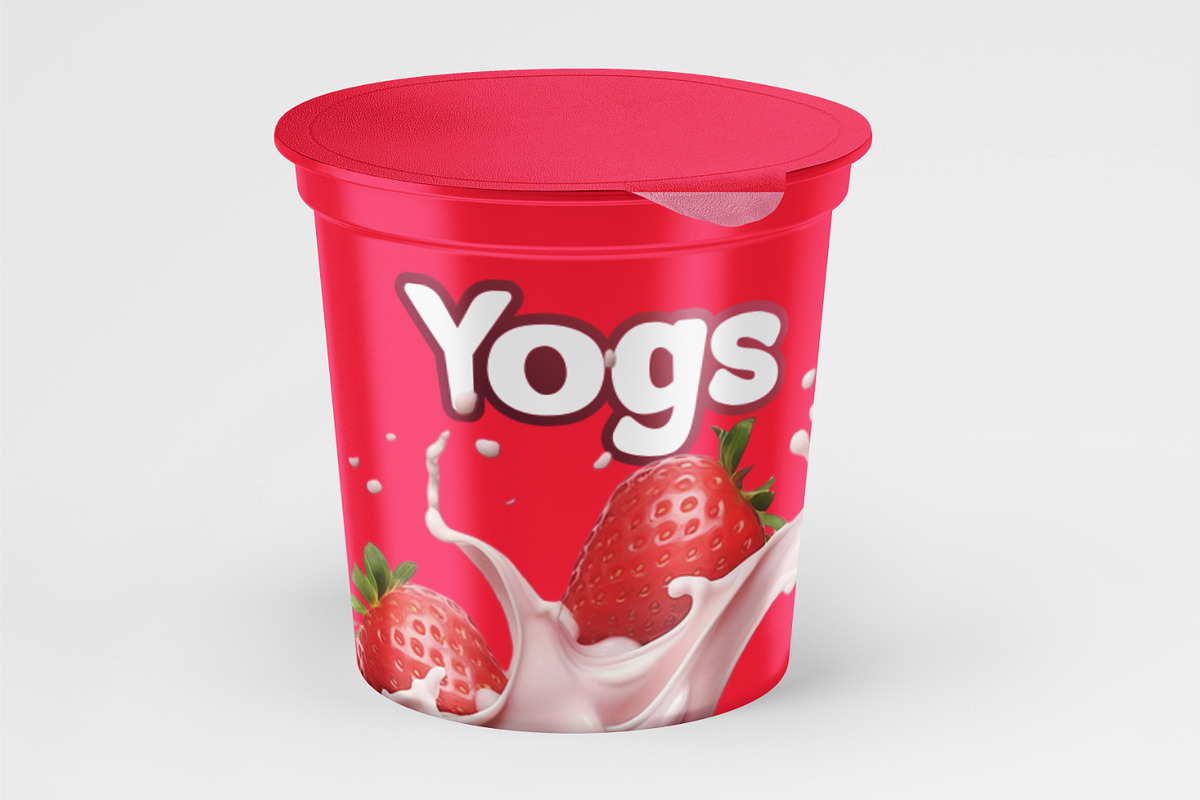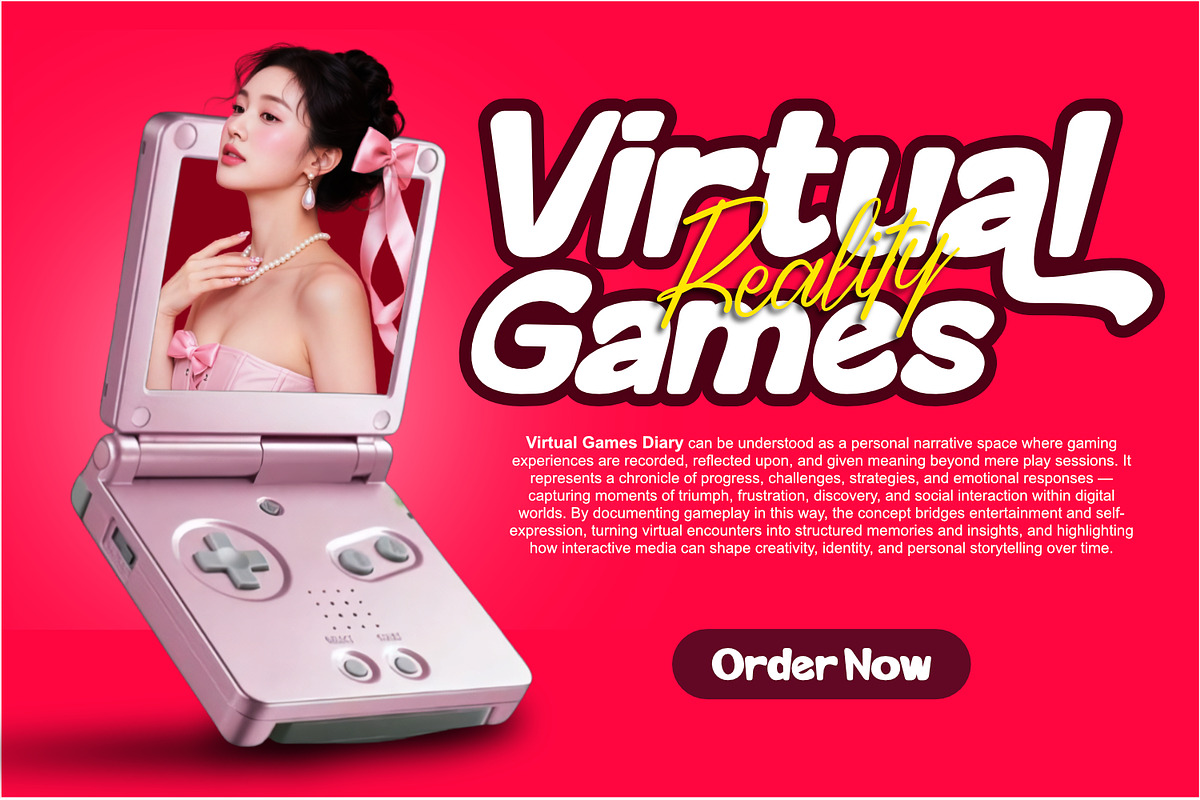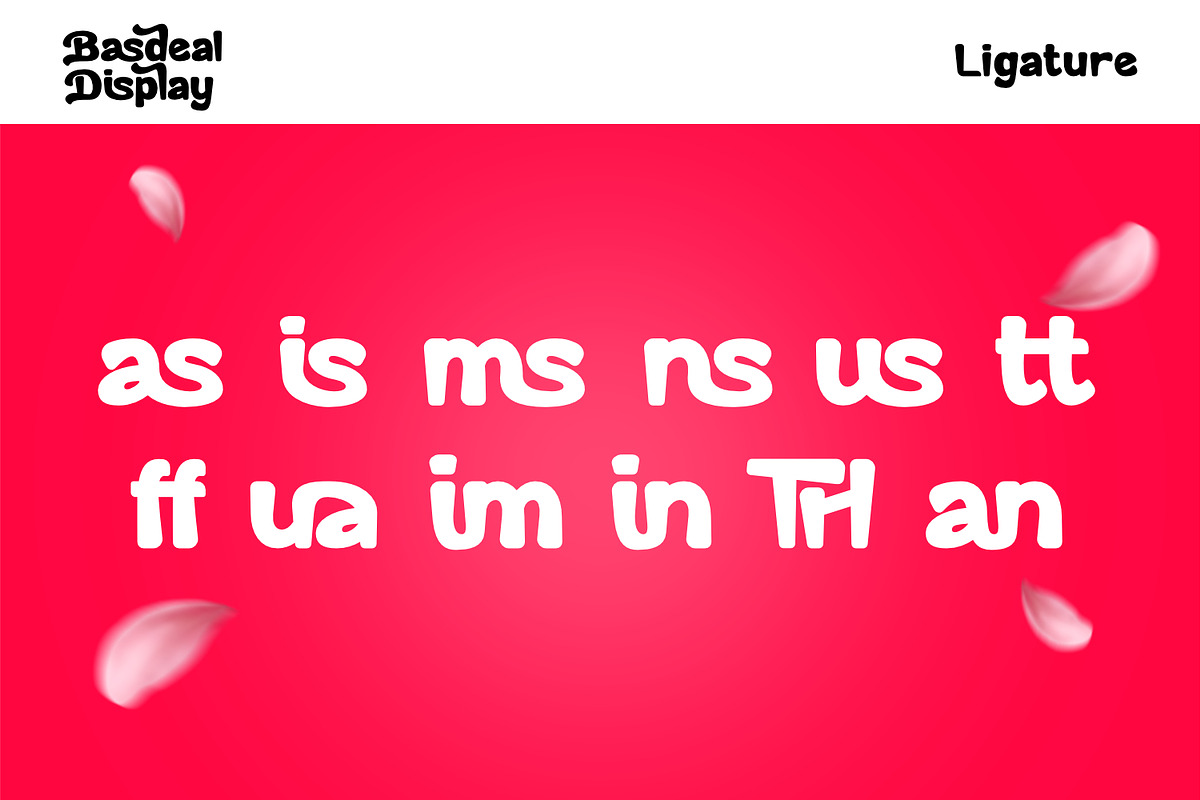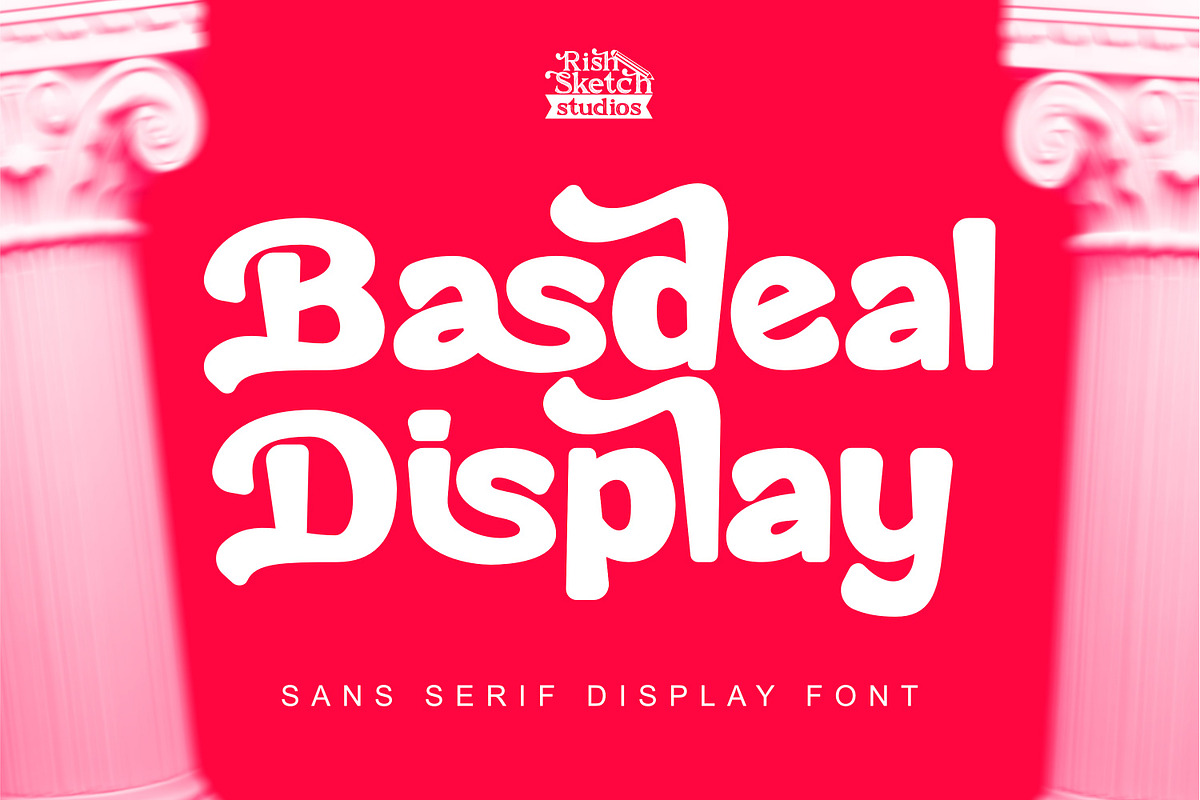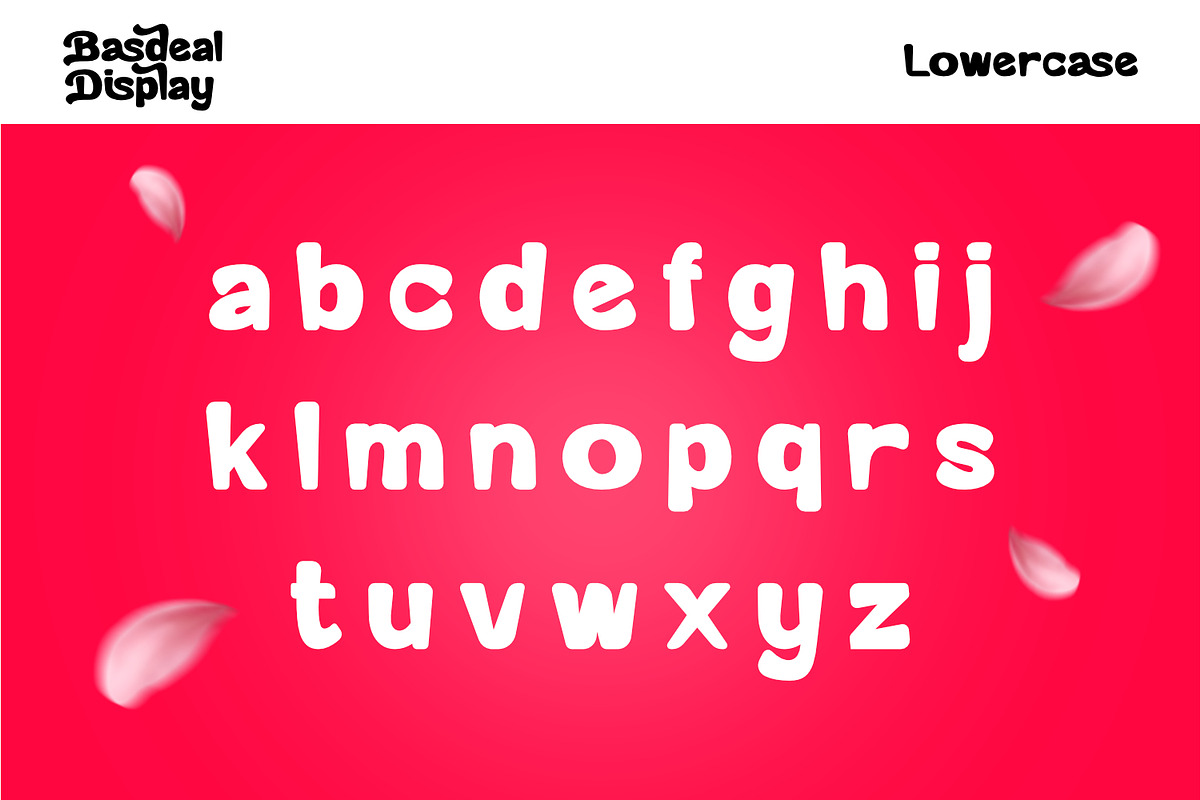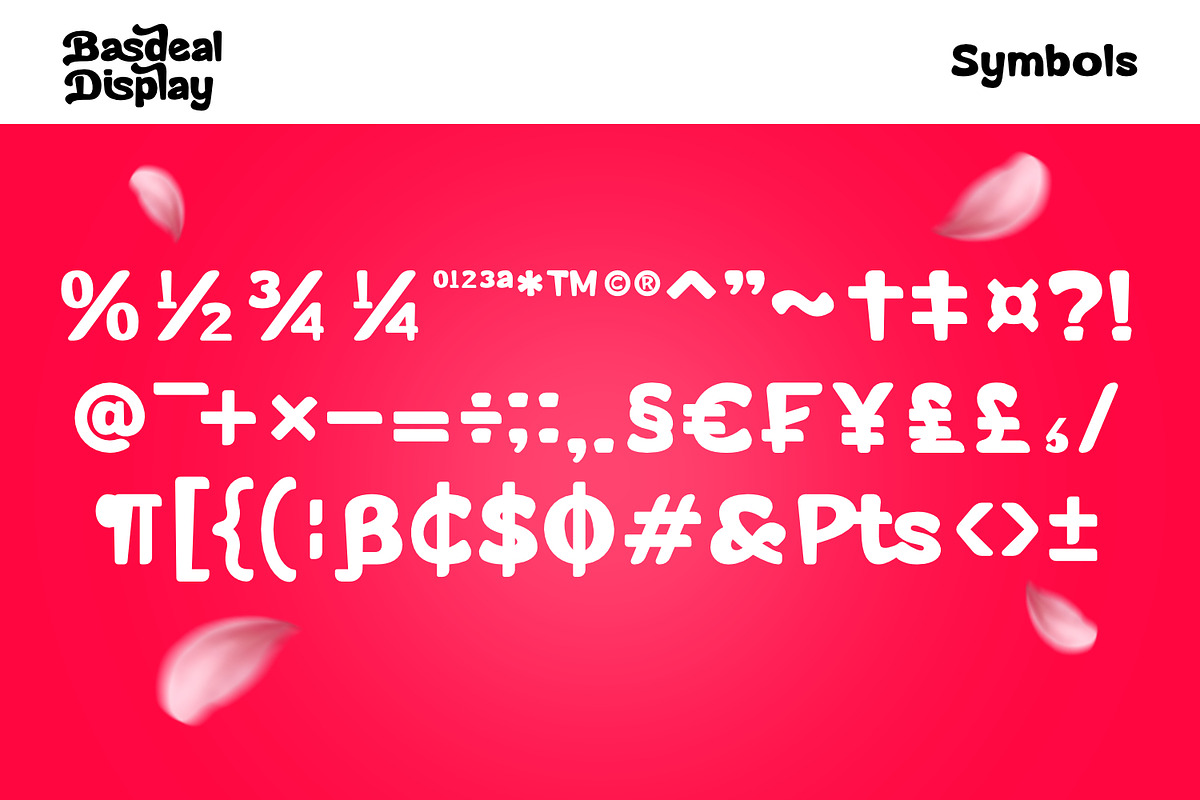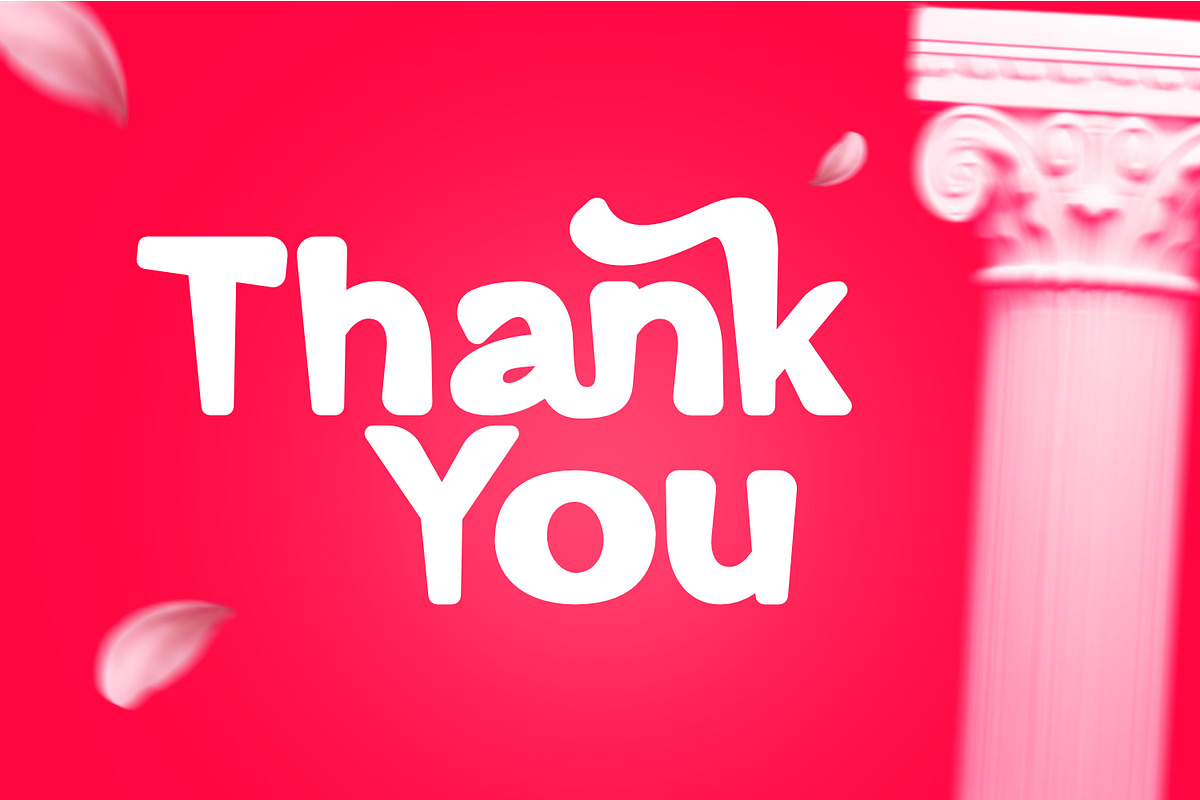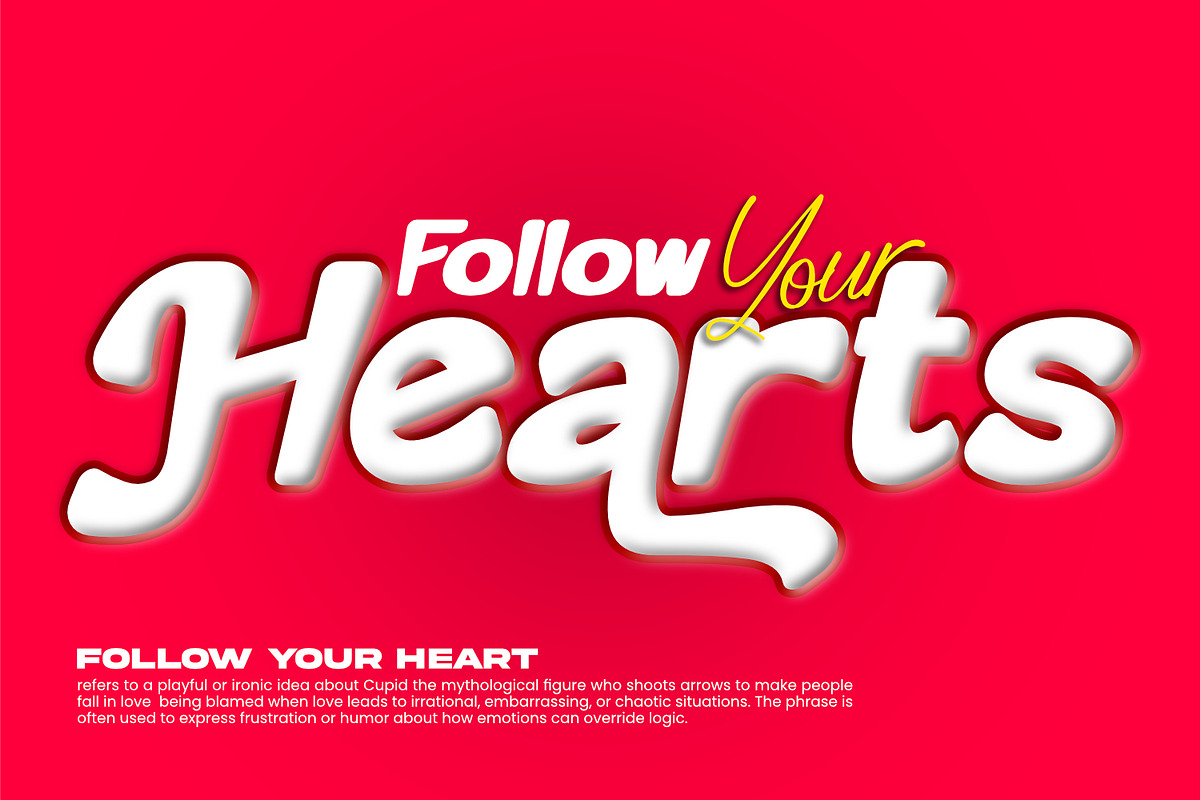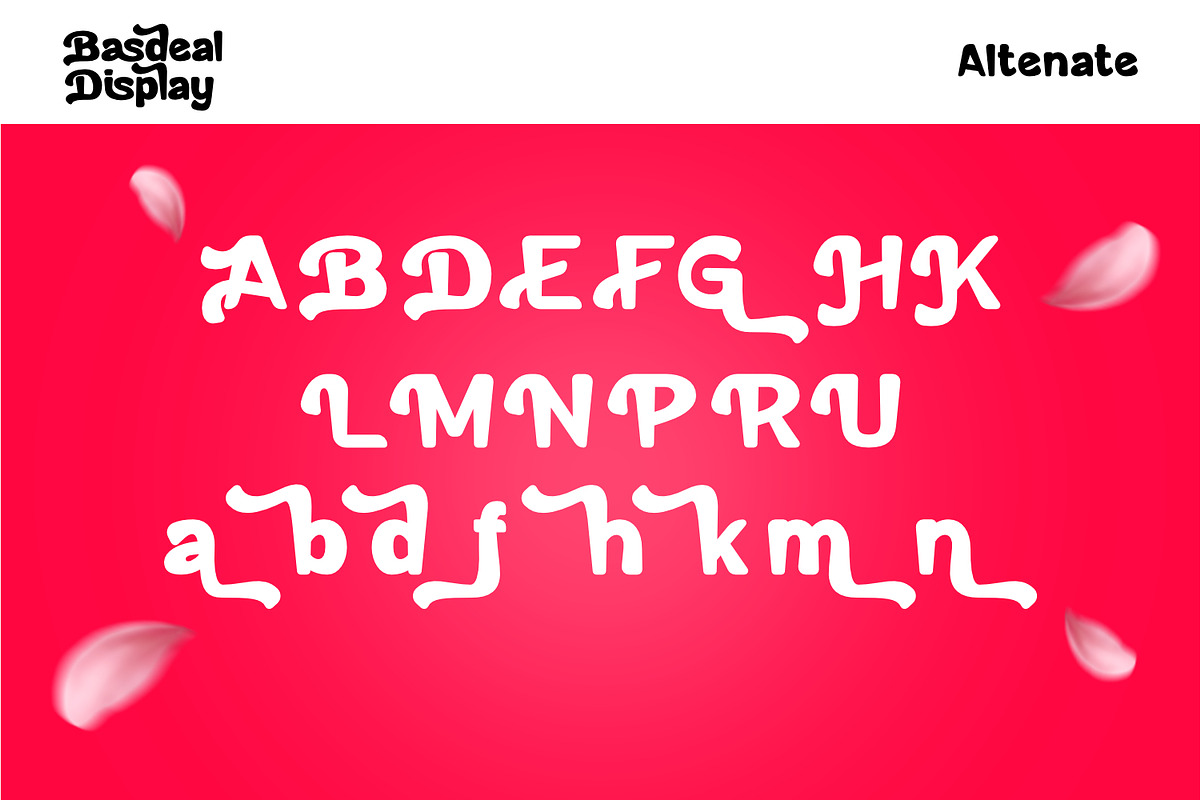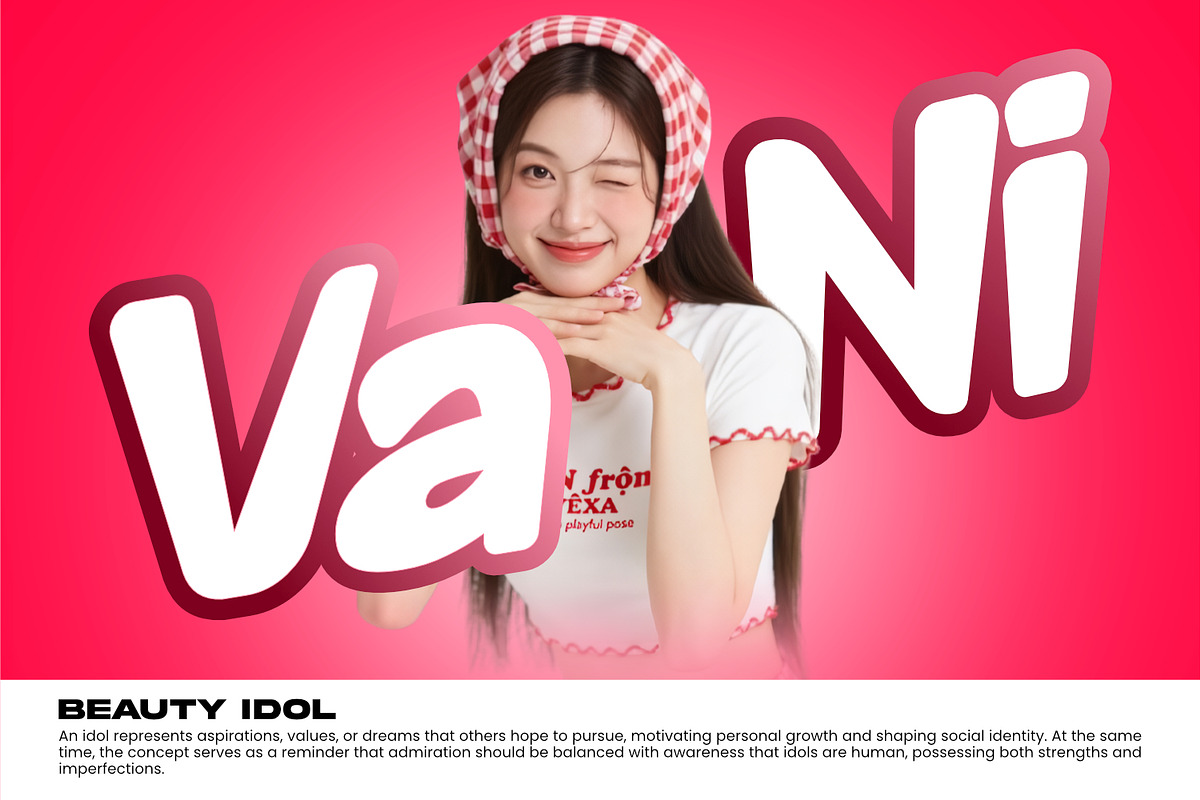
Basdeal Display - Sans Serif Display
Basdeal Display - Sans Serif Display Font, from Rishsketch Studios, is a premium Sans Serif Display Font, perfect for any project that requires a distinctive, and premium feel.
Ligature, Alternate & Multilingual
Fonts include support for 65 languages ; Afrikaans, Albanian, Asu, Basque, Bemba, Bena, Breton, Catalan, Chiga, Cornish, Danish, Dutch, English, Faroese, Filipino, French, Friulian, Galician, German, Gusii, Indonesian, Irish, Italian, Kabuverdianu, Kalenjin, Kinyarwanda, Luo, Luxembourgish, Luyia, Machame, Makhuwa-Meetto, Makonde, Malagasy, Manx, Morisyen, North Ndebele, Norwegian Bokmål, Norwegian Nynorsk, Nyankole, Oromo, Portuguese, Quechua, Romansh, Rombo, Rundi, Rwa, Samburu, Sango, Sangu, Scottish Gaelic, Sena, Shambala, Shona, Soga, Somali, Spanish, Swahili, Swedish, Swiss, German, Taita, Teso, Uzbek (Latin), Volapük, Vunjo, Zulu,